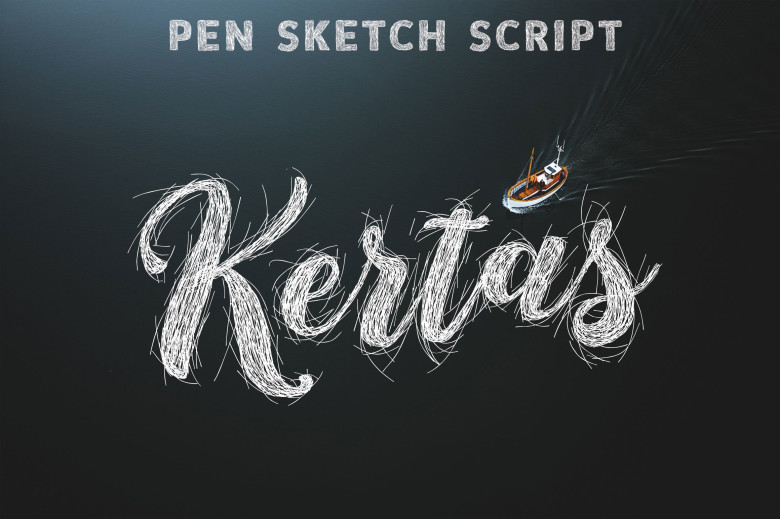
Kertas Font
Kertas is an engaging handwritten sketch font, perfect for use in digital design, crafting presentations or greeting card making! No matter the event or task at hand, Kertas will become your go-to font!
Kertas Sketch Handwritten Script Font